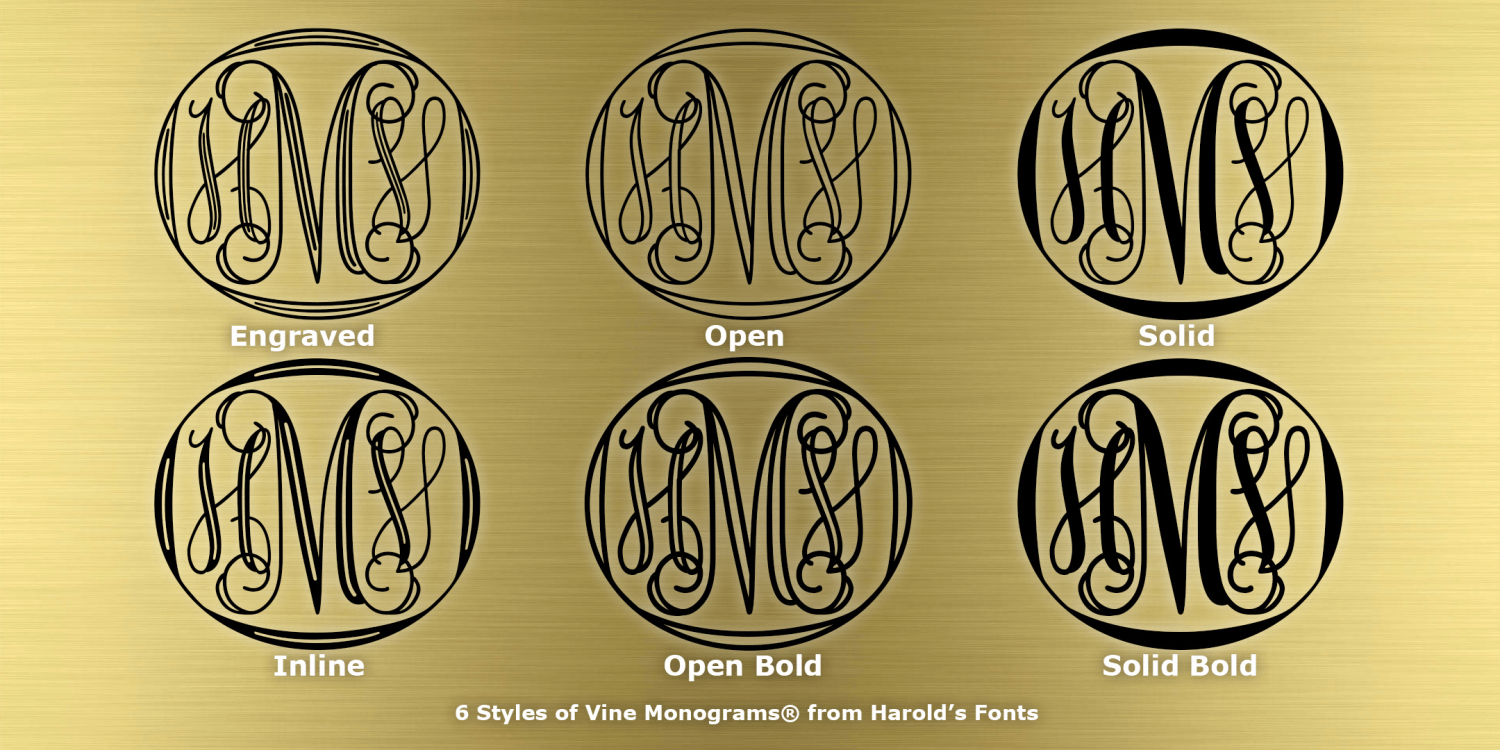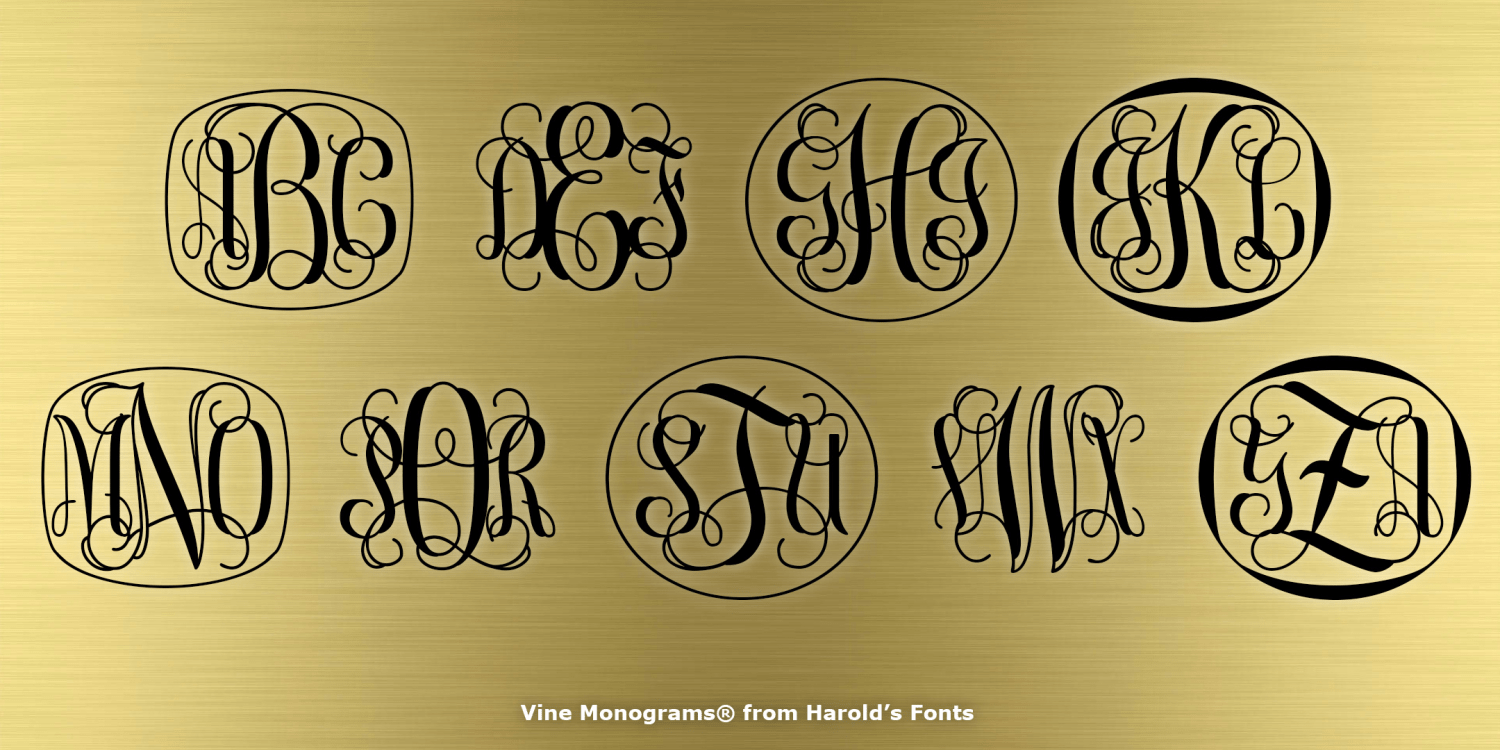
Vine Monograms
About Vine Monograms
Vine Monograms® are my most intricate and intertwined monograms yet! The design was inspired by letters made for machine "pantograph" engraving. I've completely redrawn each letter and developed a series of 6 related fonts that can be…